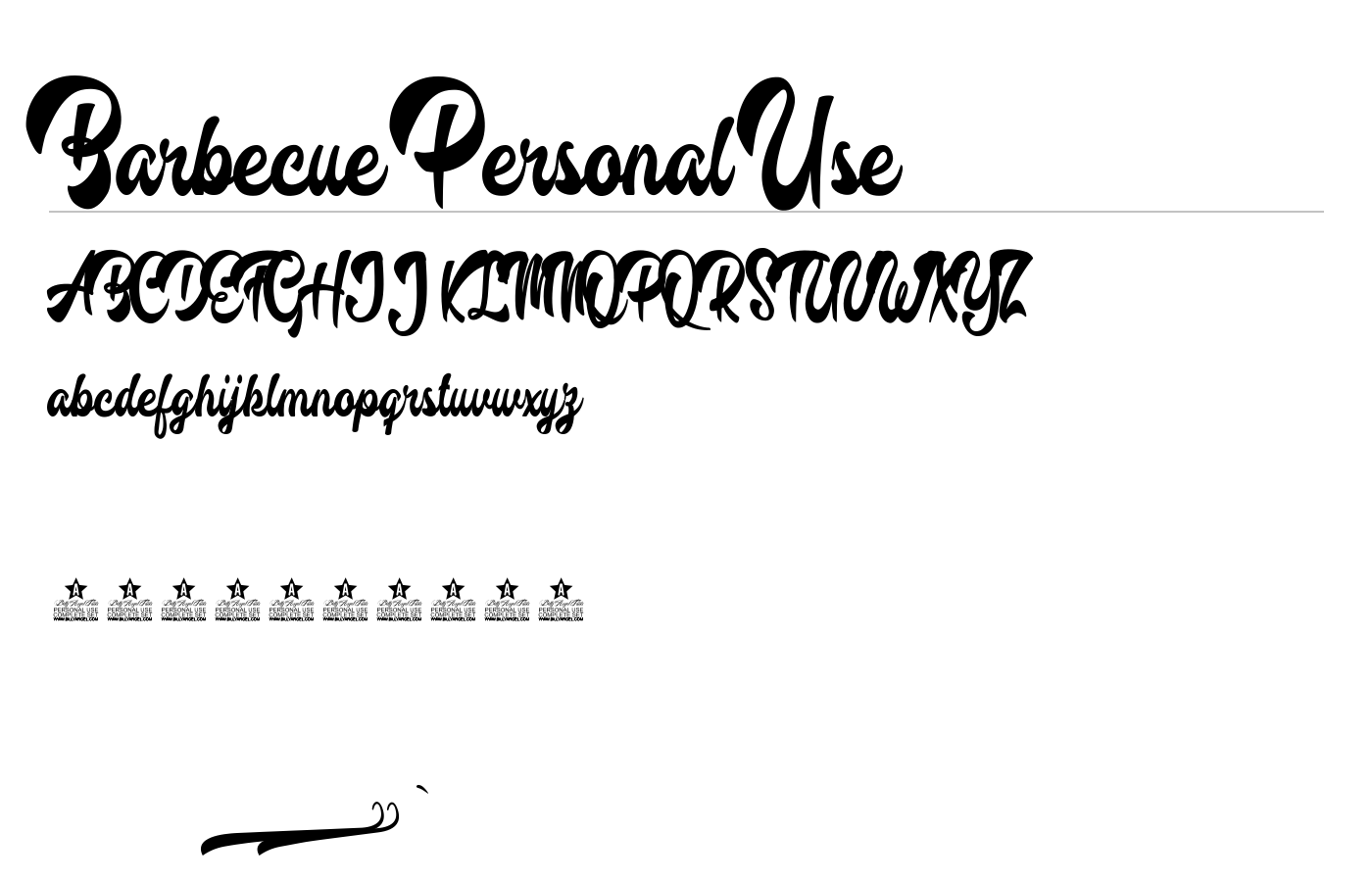
Barbecue Personal Use is a bold and playful script font with a hand-lettered feel, featuring smooth, flowing strokes and an energetic style. Its lively curves and strong weight make it an excellent choice for casual branding, posters, and packaging where a fun, approachable, and creative vibe is desired. This font works especially well in headlines and display text, bringing warmth and personality to any design.
Barbecue Personal Use Font
About Barbecue Personal Use Font
| Font family | Barbecue Personal Use Font |